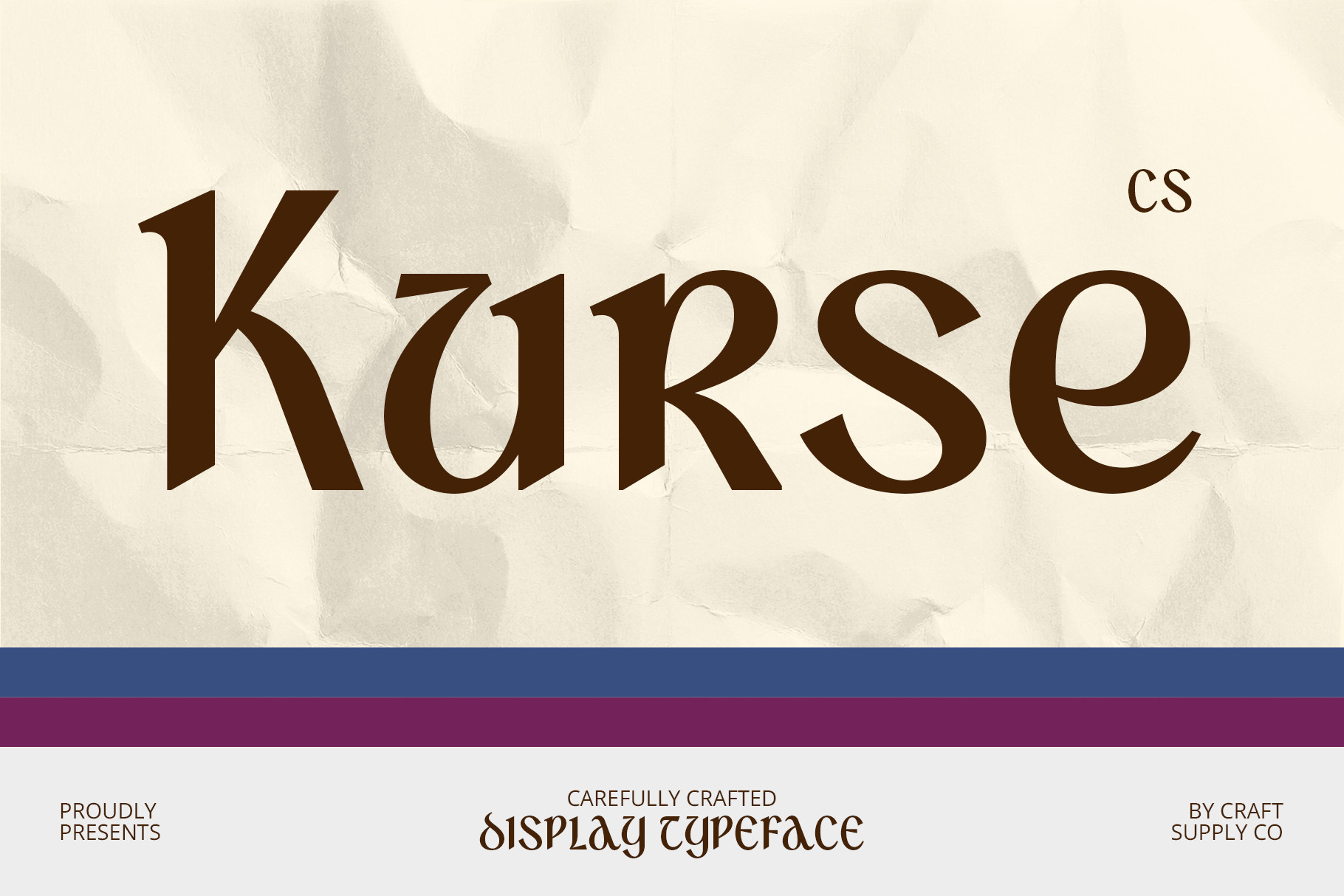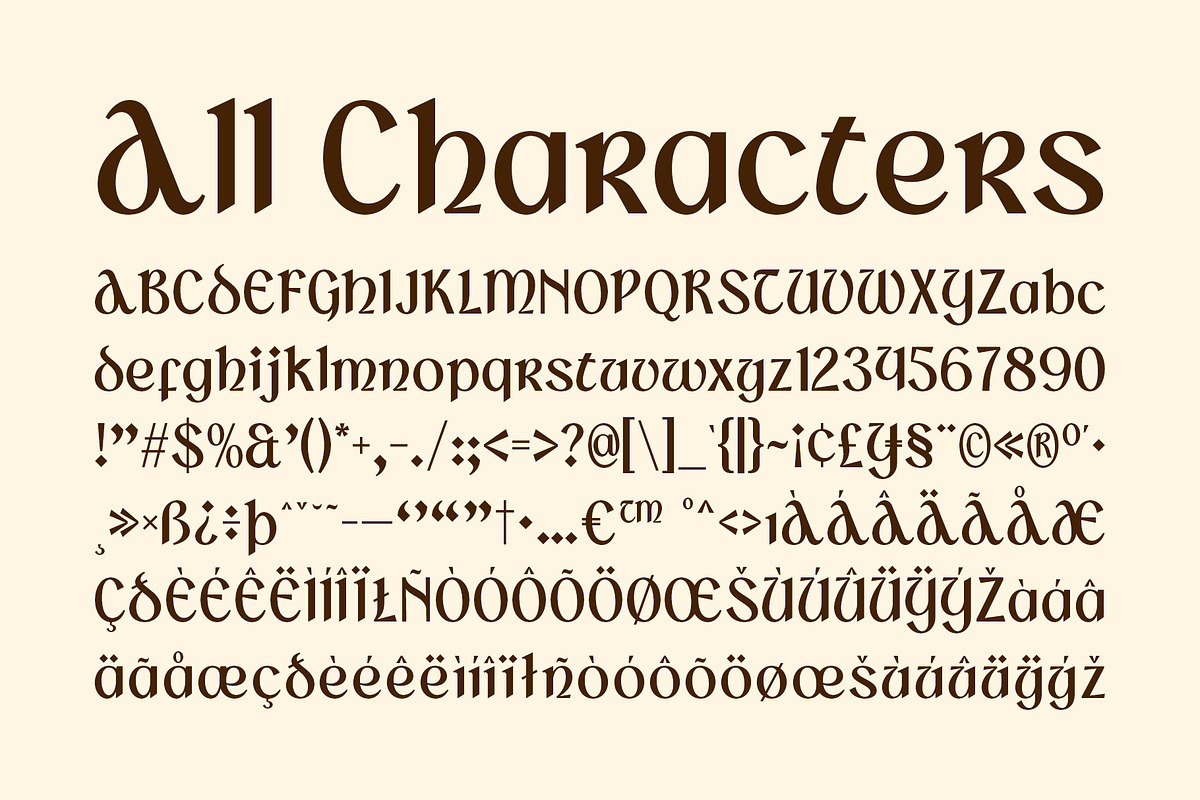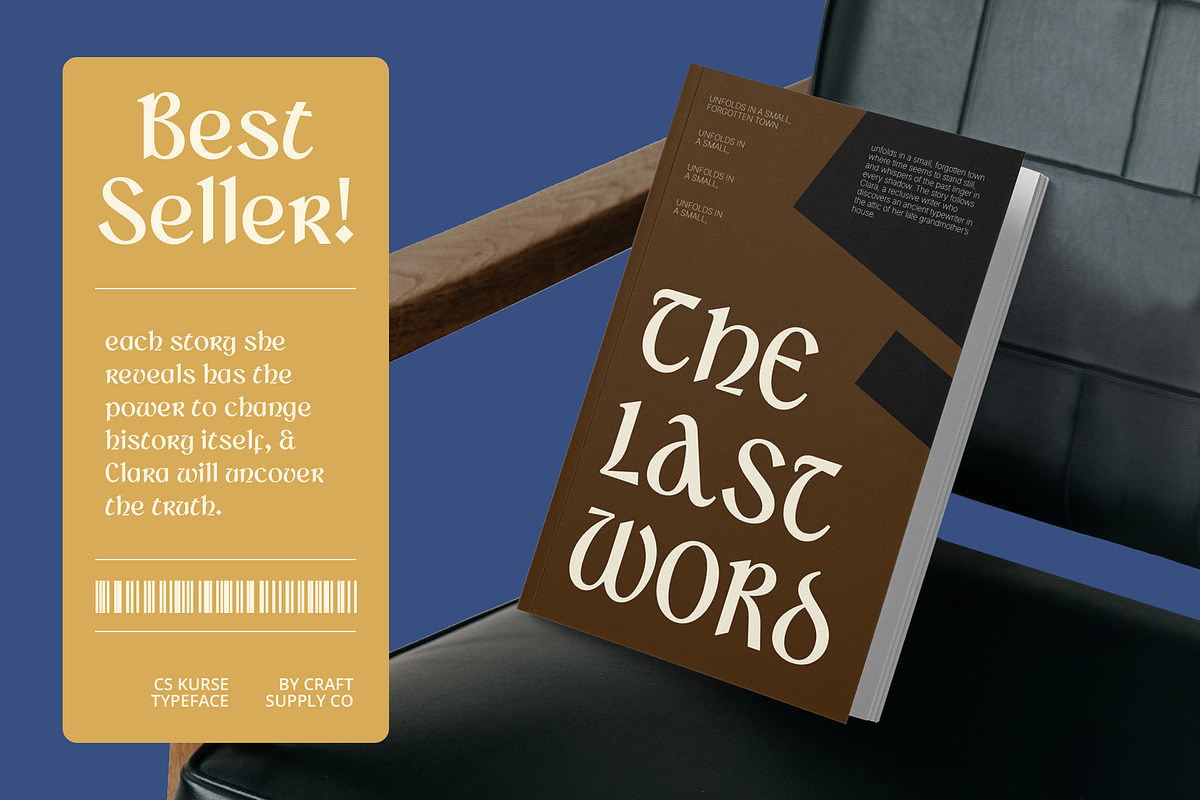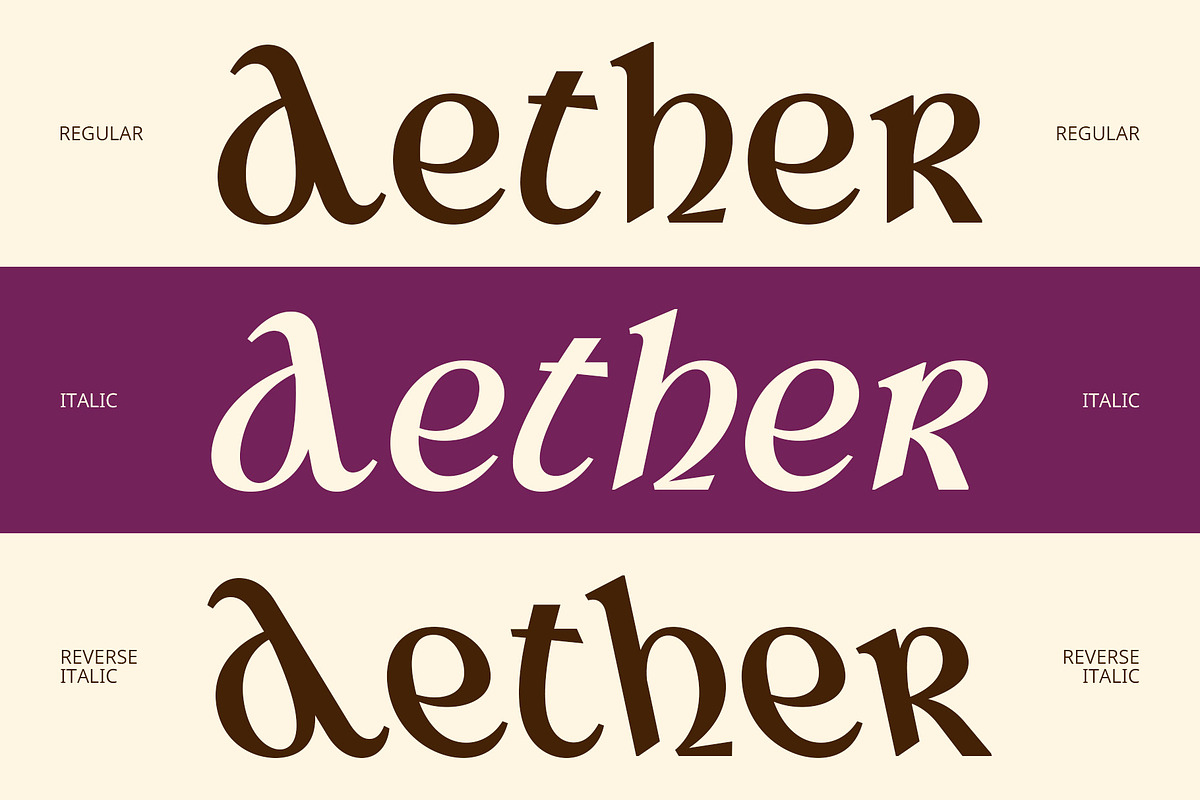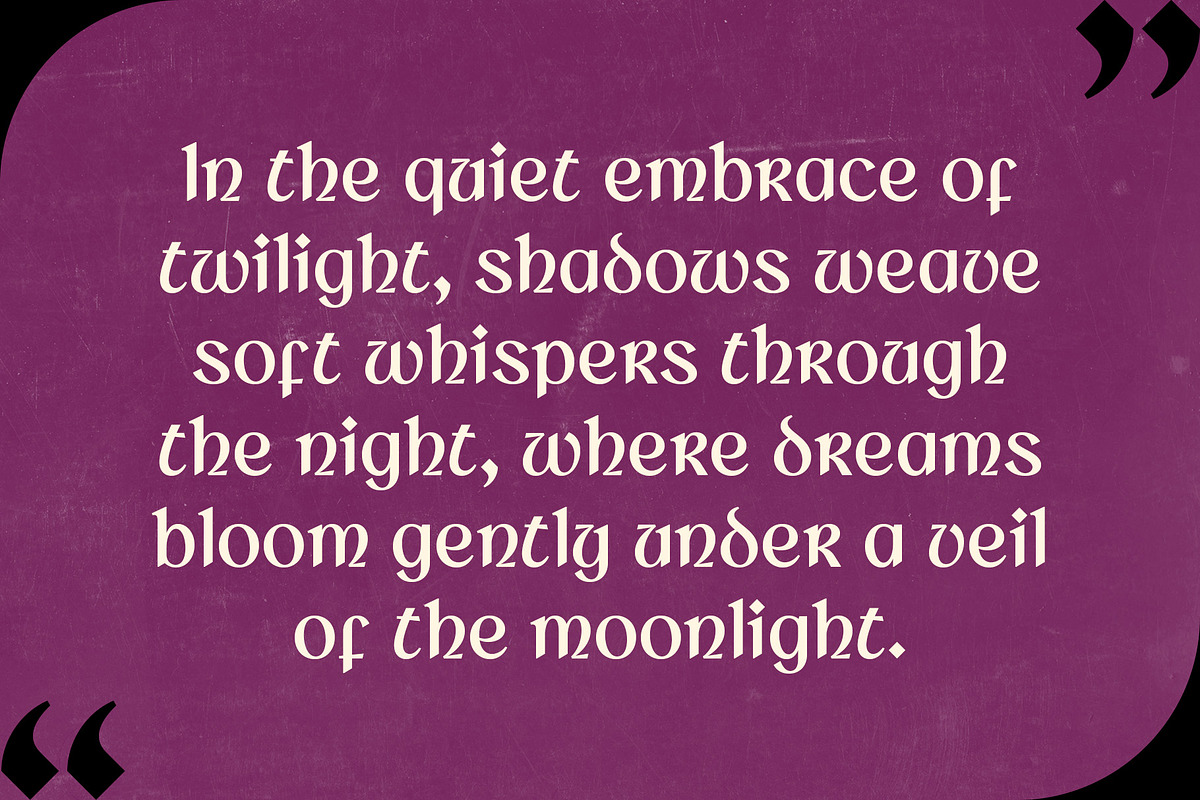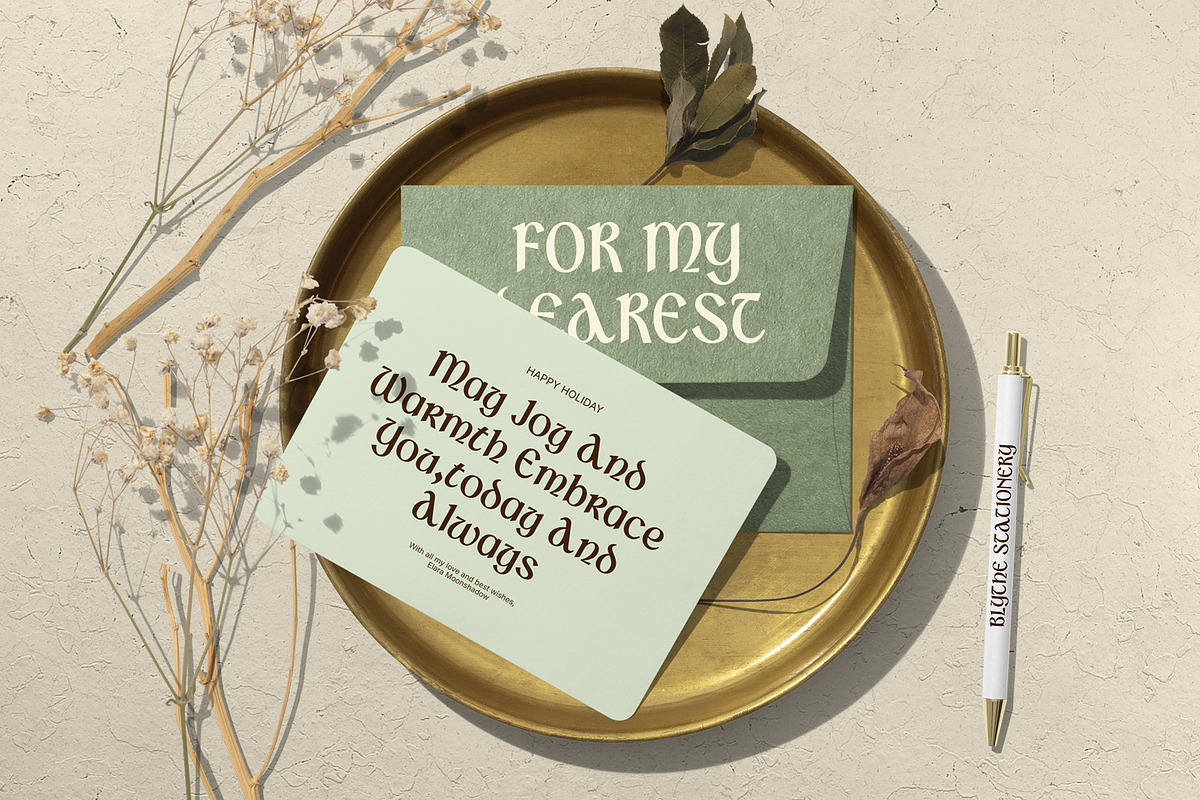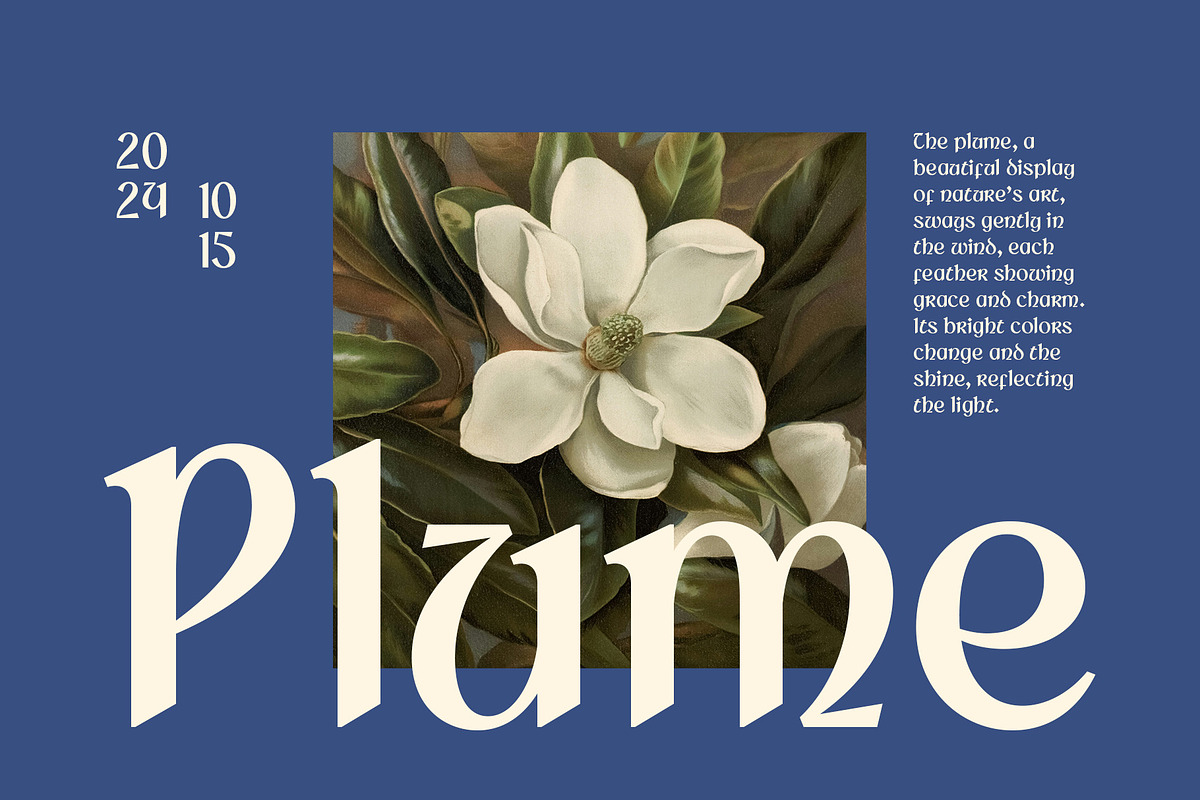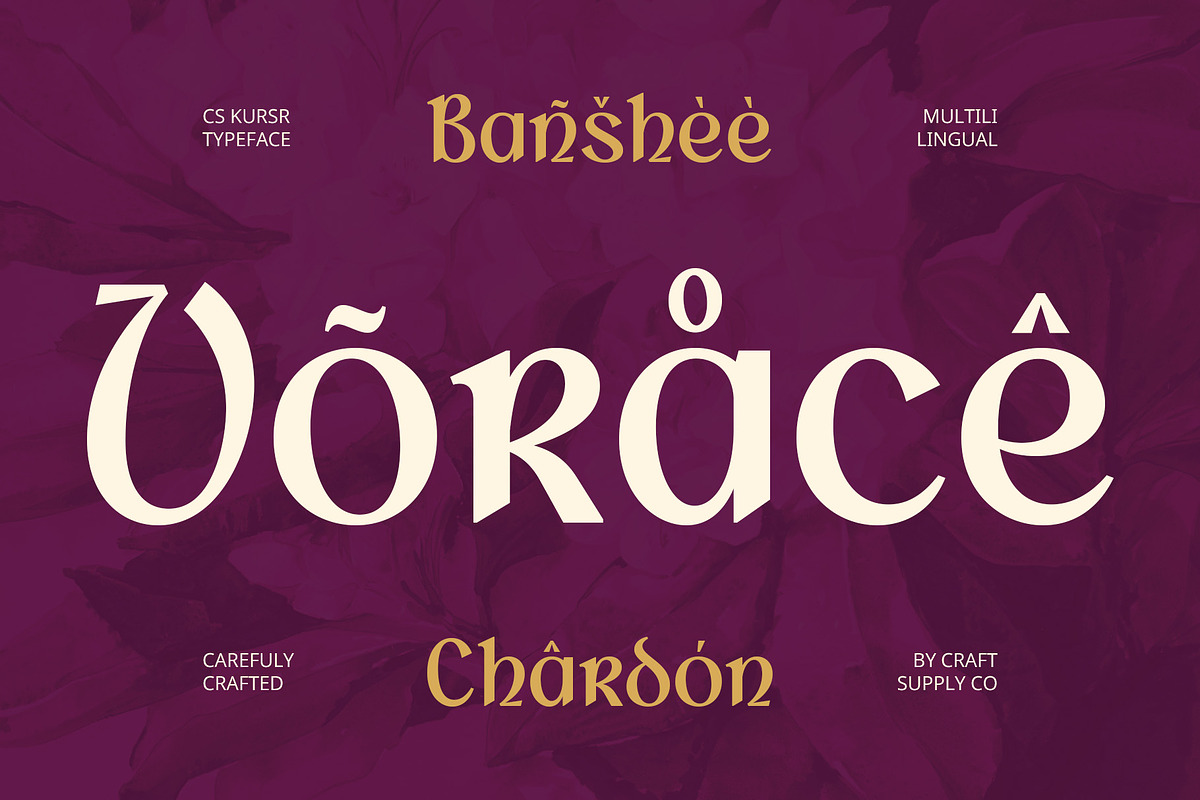
CS Kurse – Uncial Font
CS Kurse – Uncial Font: A Timeless Blend of Medieval Charm and Artistic Elegance
Medieval Inspiration with Bold Curves CS Kurse is a display font inspired by the ancient uncial script, characterized by round, bold letterforms with gentle curves. This style harks back to the medieval era, evoking a sense of timelessness and classic elegance. The letters are designed to feel both soft and strong, capturing the delicate balance between artistic flair and historical significance. Perfect for designs that aim to deliver a nostalgic, yet visually striking impression, CS Kurse brings a unique touch to any project.
Rich in Historical Character The uncial style of CS Kurse imparts an air of tradition and sophistication, making it ideal for projects that seek to communicate a sense of age-old wisdom, elegance, and craftsmanship. The rounded, fluid shapes of the font reflect the ancient scripts that were once hand-written by monks and scribes, bringing a deep historical connection to your design. Whether for posters, book covers, or artworks, this font adds a vintage charm that stands out with visual uniqueness.
Ideal for Artistic and Vintage Designs CS Kurse shines in designs that require a classic, antique vibe with an artistic and elegant twist. Its unique letterforms make it a perfect choice for branding that aims to evoke nostalgia, or for projects that celebrate vintage or historical themes.